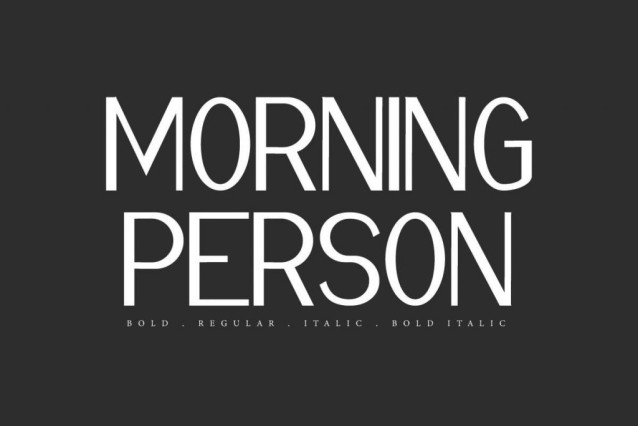
Morning Person Font
Morning Person Font is an elegant and minimalist sans display fon. This font is exclusively designed by VinType Studio. It has four different styles, named Regular, Bold, Italic, and Italic Bold, which will give your designs a different look. It will be suitable for many industries, such as accessories, café, fashion, florist, homeware, jewelry, perfume, photography, printing, real estate, skincare, etc.
Morning Person Font includes full set of Uppercase and Lowercase Basic Character, Numerals and Punctuation. The letters in this font will give a unique impression because they have different shapes. Use these fonts to enhance your designs, such as billboard, brochure, business card, labels, magazine cover, poster, product packaging, quote, signage, stationery, website, and more!